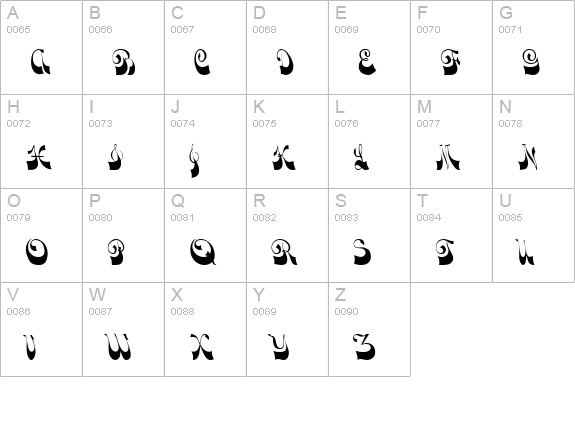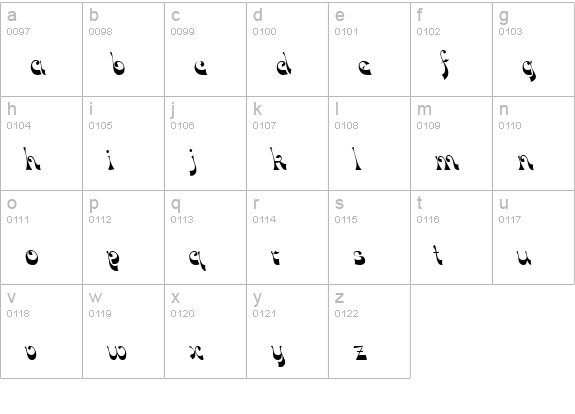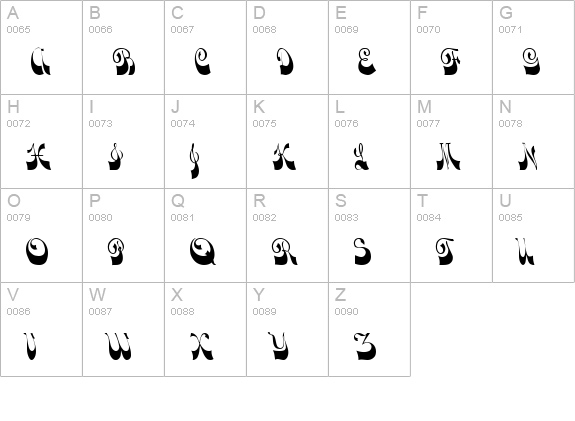
Gasparone Font Details
Gasparone font is a versatile and modern typeface that exudes elegance and sophistication. With its clean lines and stylish curves, Gasparone is perfect for adding a touch of class to any design project. Whether you're working on a logo, website, or print material, this font will elevate your work to the next level. What sets Gasparone font apart is that it is not only visually appealing but also free to use. That's right, you can download Gasparone font for free at FontsMarket.com. This means you can access this high-quality font without breaking the bank, making it a valuable addition to your font collection. Gasparone font is designed to be easy to read while still standing out from the crowd. Its timeless aesthetic makes it suitable for a wide range of applications, from branding to editorial design. Give your projects a professional edge with Gasparone font, available for free at FontsMarket.com.